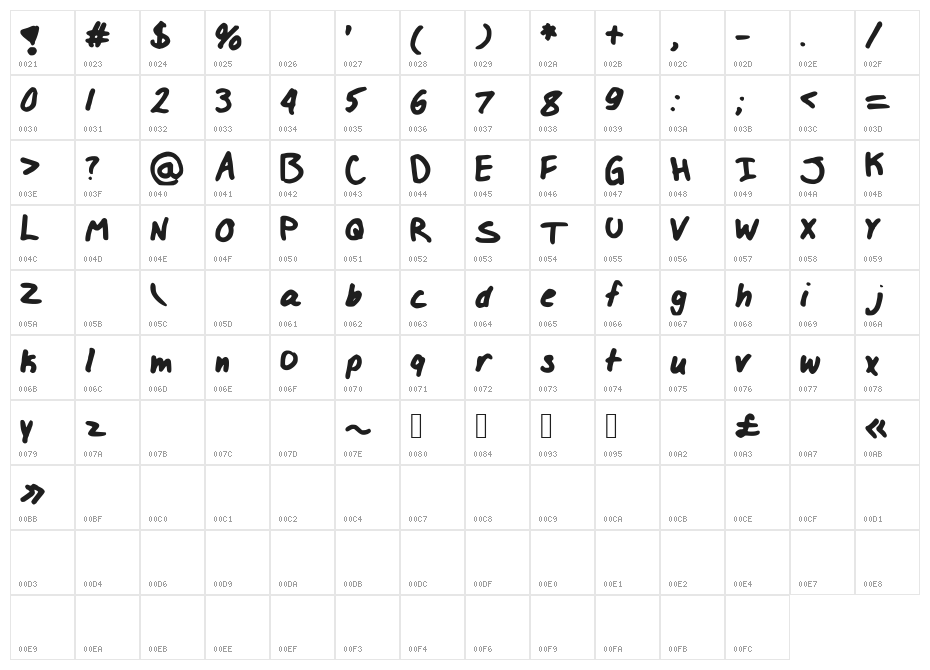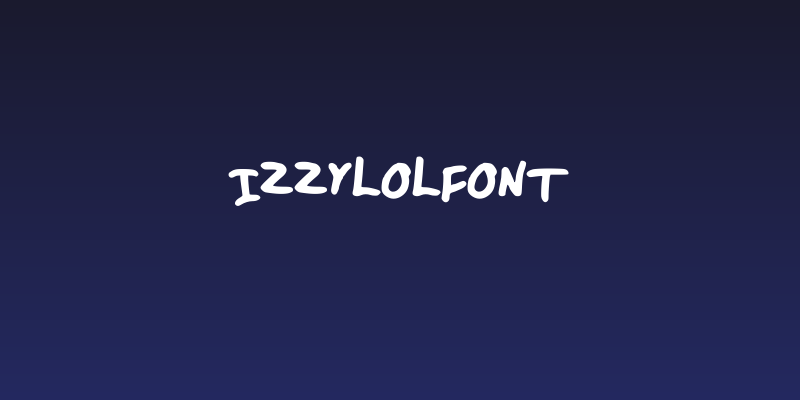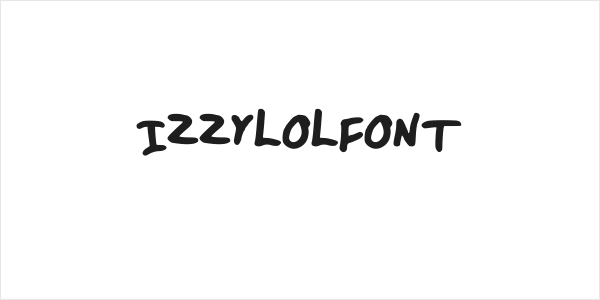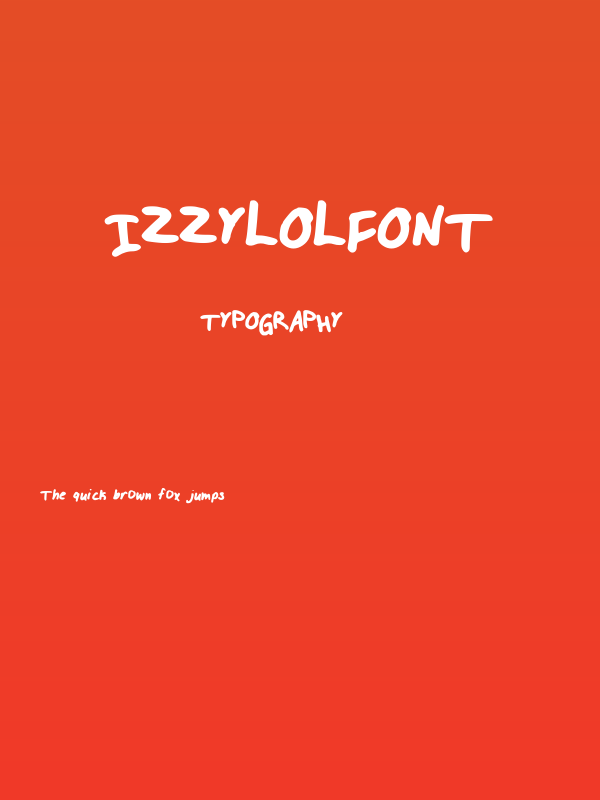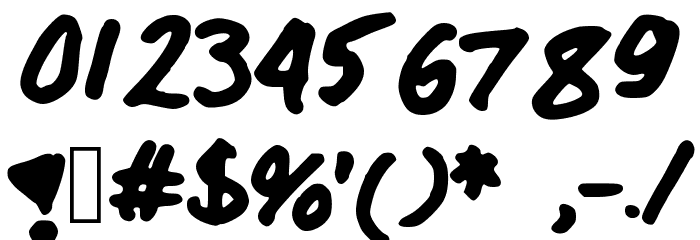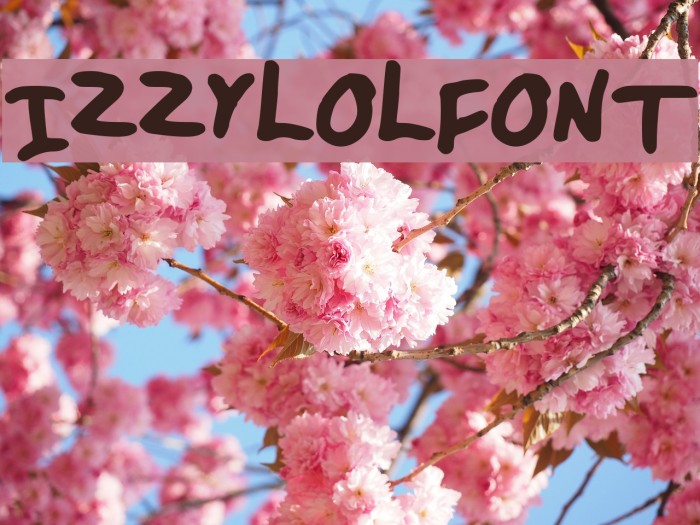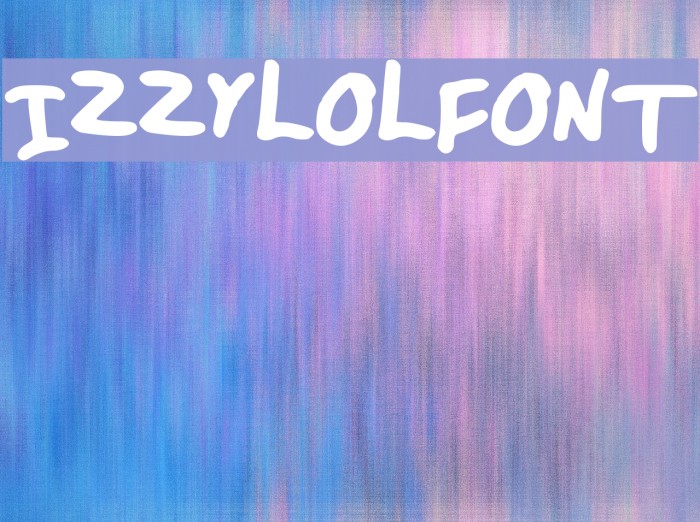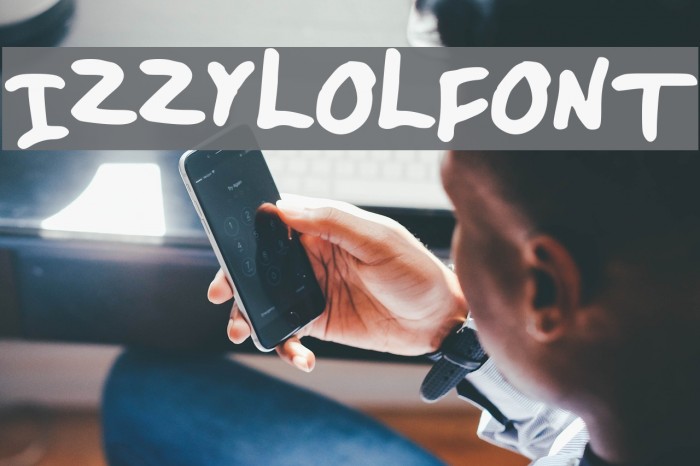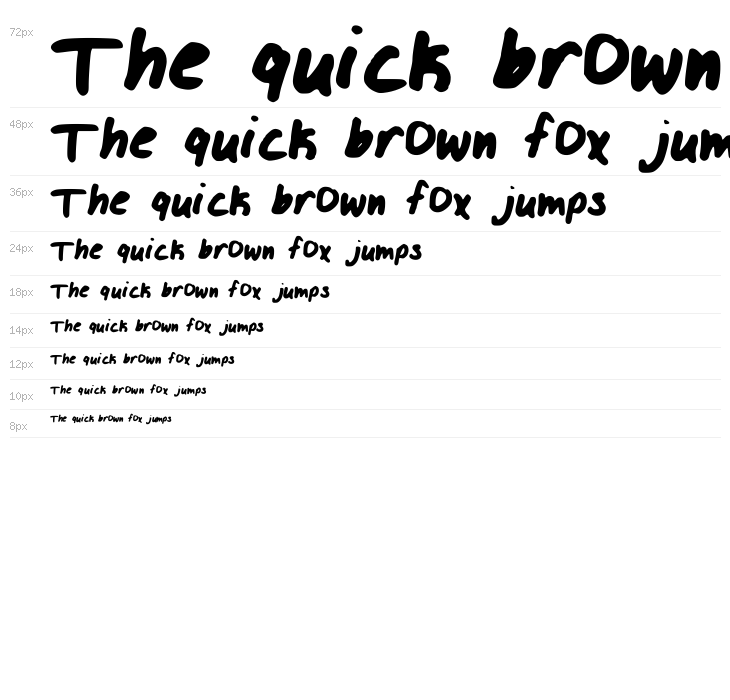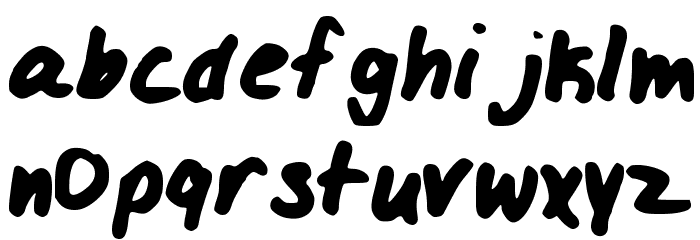
IZZYLOLFONT Font
IZZYLOLFONT Description
This playful and bold handwritten font exudes a casual and friendly vibe. The letters are rounded and slightly irregular, giving it a natural, hand-drawn appearance. The uppercase and lowercase letters maintain a consistent style, with a noticeable slant that adds to its informal charm. The numerals are equally dynamic, matching the lively character of the alphabet. Special characters are creatively designed, enhancing the font's whimsical nature. This font is perfect for projects that require a personal touch or a fun, approachable aesthetic.